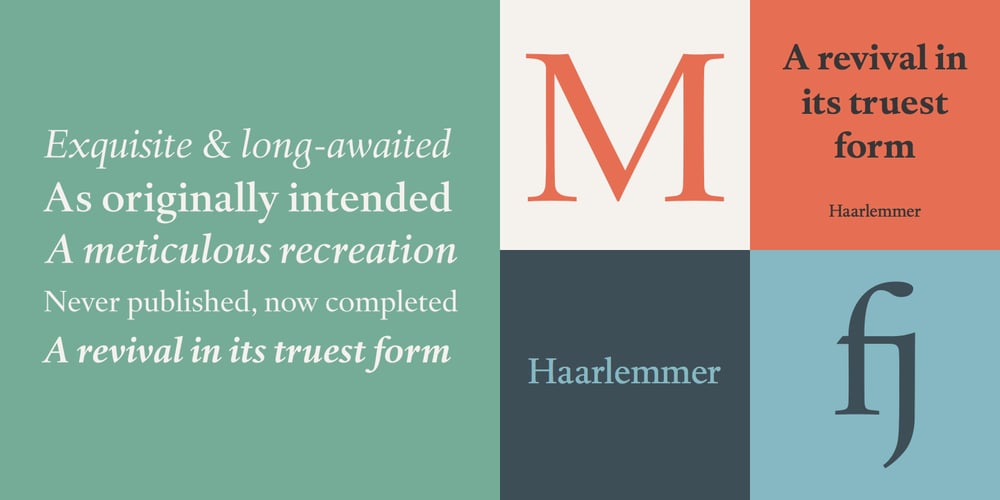
Haarlemmer Font Family was designed by Frank E. Blokland, Jan van Krimpen and published by Monotype. Haarlemmer contains 6 styles and family package options. Haarlemmer is a recreation of a never-produced Jan Van Krimpen typeface that goes one step beyond authentic: it shows how he wanted it to be designed in the first place. The original, drawn in the late 1930s, was created for the Dutch Society for the Art of Printing and Books and was to be used to set a new edition of the Bible, using Monotype typesetting. Hence the problem: fonts for metal typesetting machines like the Linotype and Monotype had to be created within a crude system of predetermined character width values. Every letter had to fit within and have its spacing determined by a grid of only 18 units. Often, the italic characters had to share the same widths as those in the roman design. Van Krimpen believed this severely impaired the design process.The invasion of Holland in World War II halted all work on the Bible project, and the original Haarlemmer never went into production. Flash forward about sixty years.Frank E. Blokland, of The Dutch Type Library, wanted to revive the original Haarlemmer, but this time as Van Krimpen would have intended. Blokland reinterpreted the original drawings and created a typeface that matched, as much as possible, Van Krimpen’s initial concept. While Van Krimpen’s hand could no longer be on the tiller, a thorough study of his work made up for his absence.The result is an exceptional text family of three weights, with complementary italic designs and a full suite of small caps and old style figures. Van Krimpen would be proud.